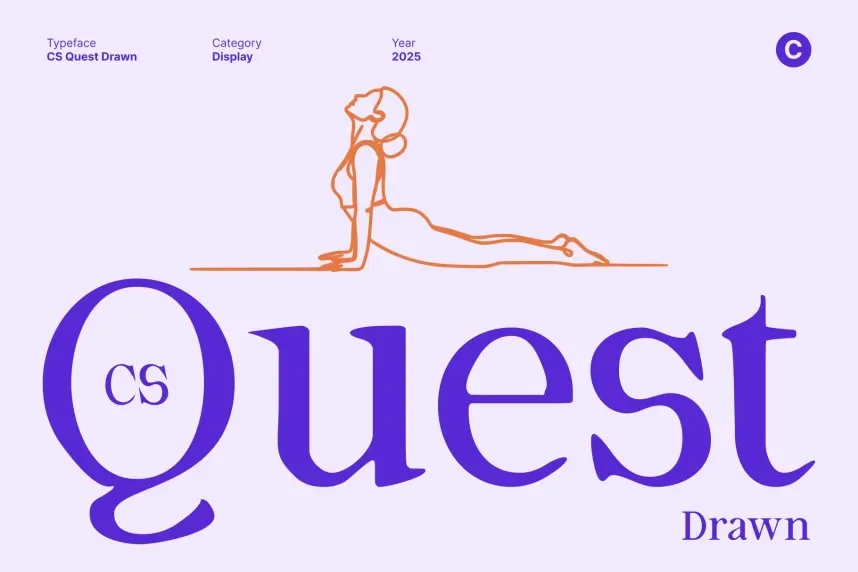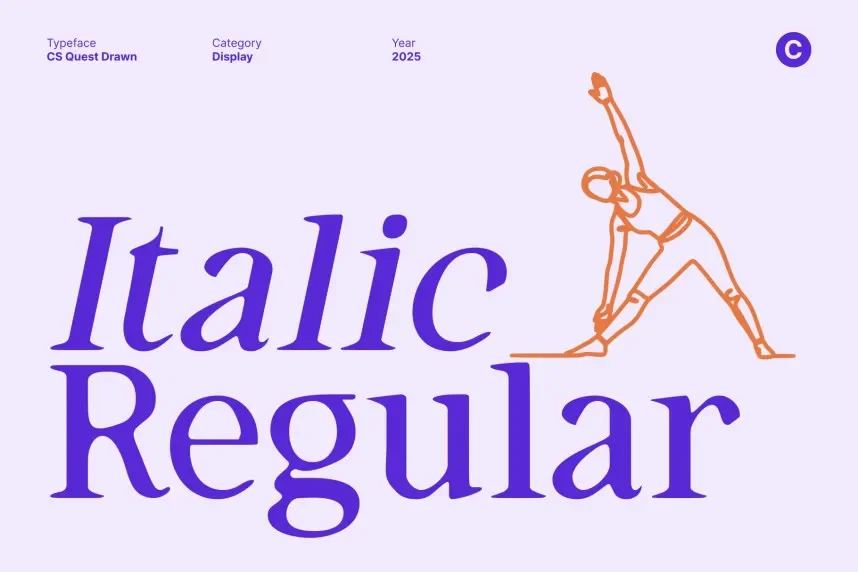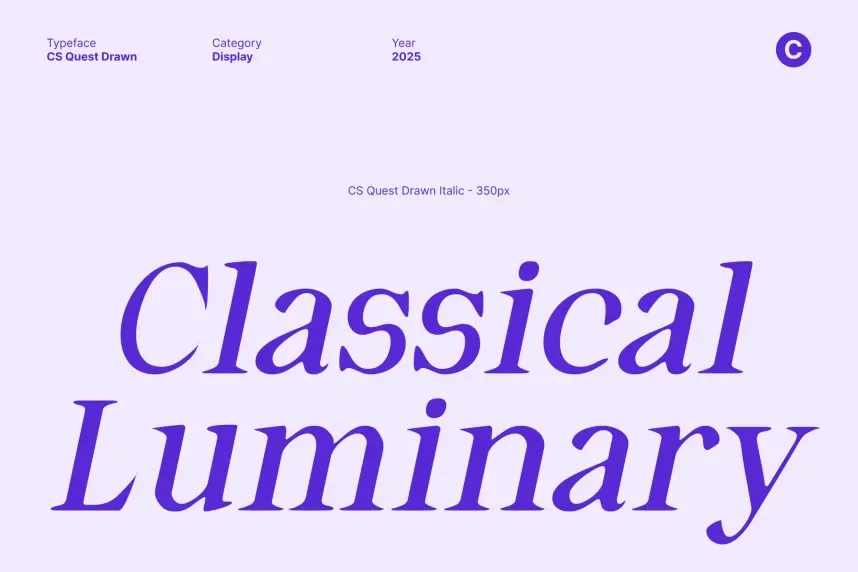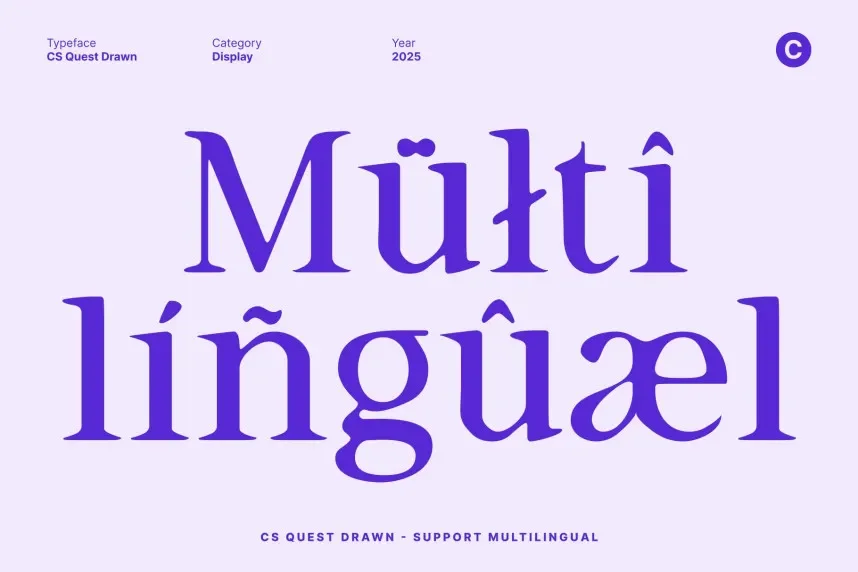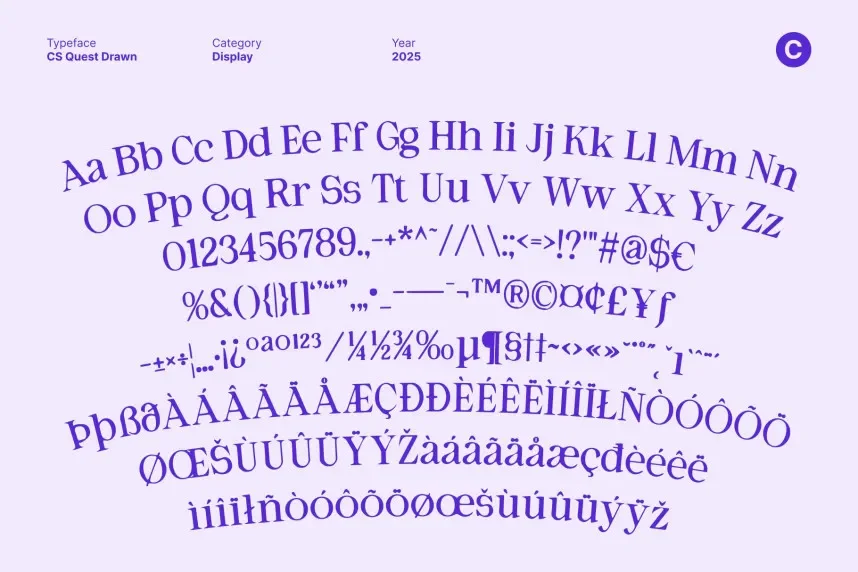
CS Quest Font is a hand-drawn script typeface that combines whimsical strokes with strong, flowing curves. Its playful, unique design is ideal for creative projects such as posters, branding, and digital media that require an expressive touch.
Best used for logos, product packaging, and event promotions, CS Quest Font pairs well with minimalist sans-serif fonts for balance. Available in TTF and OTF formats, it includes a commercial-use license. Always check the license for commercial use.